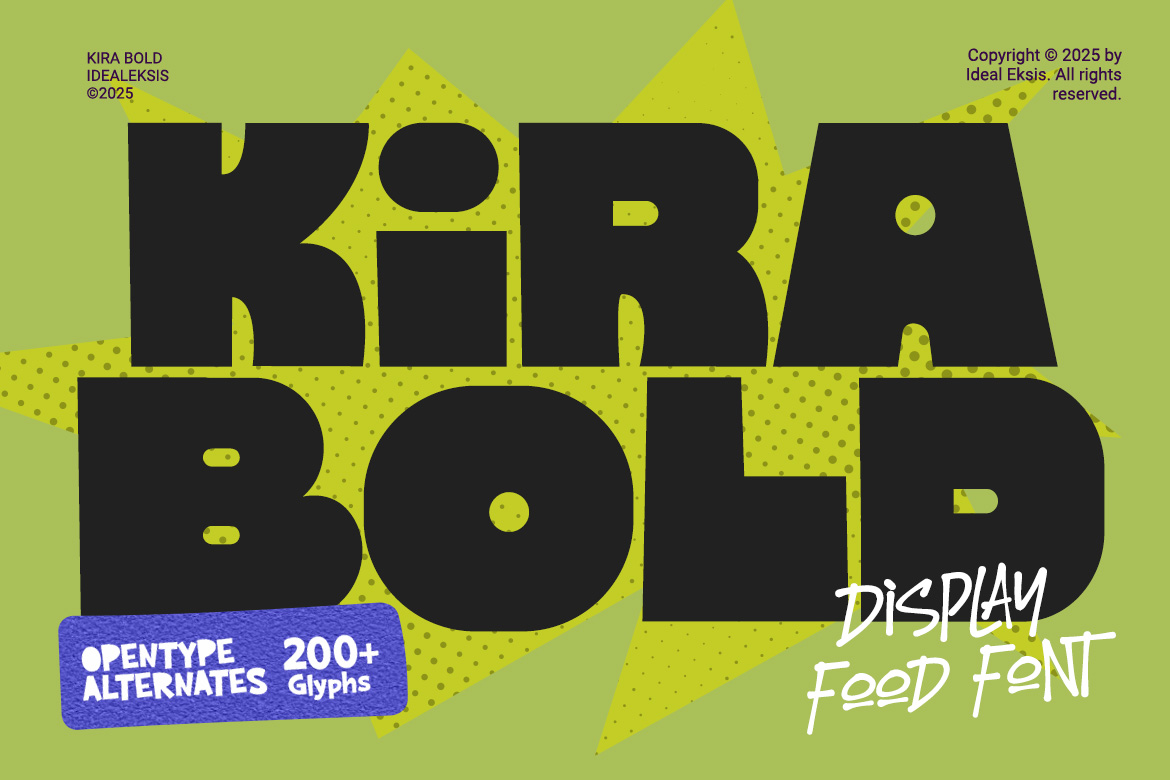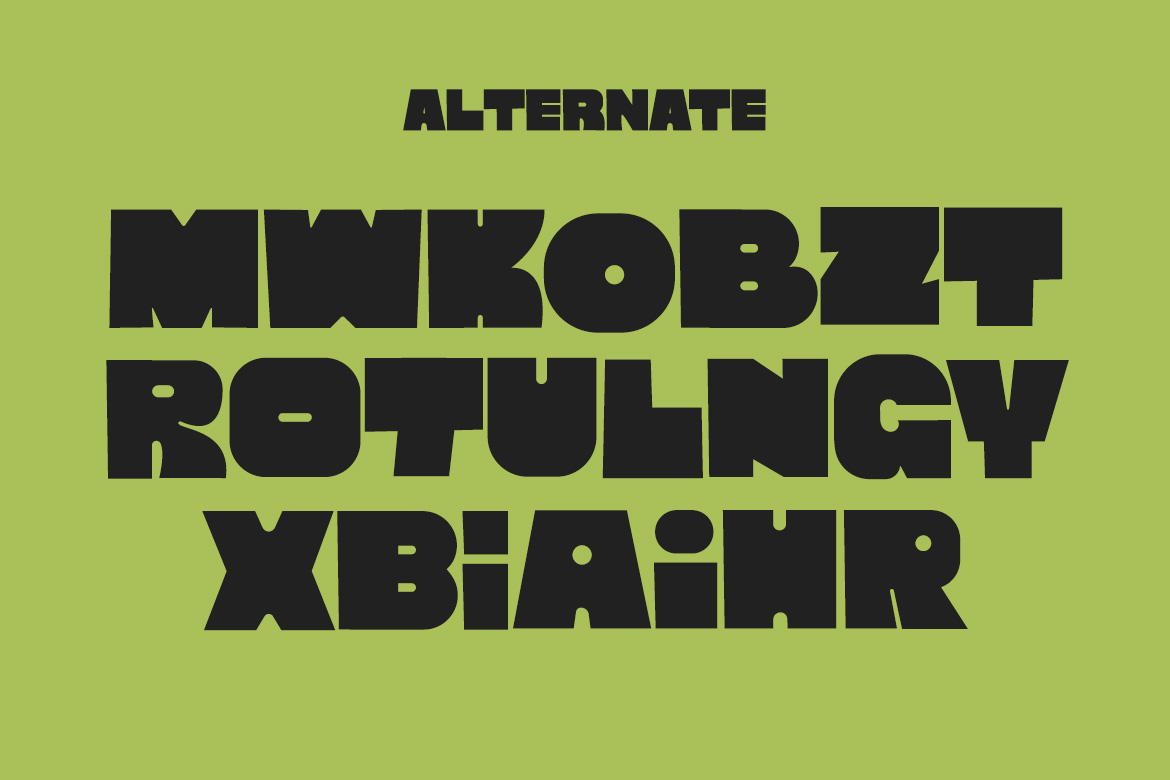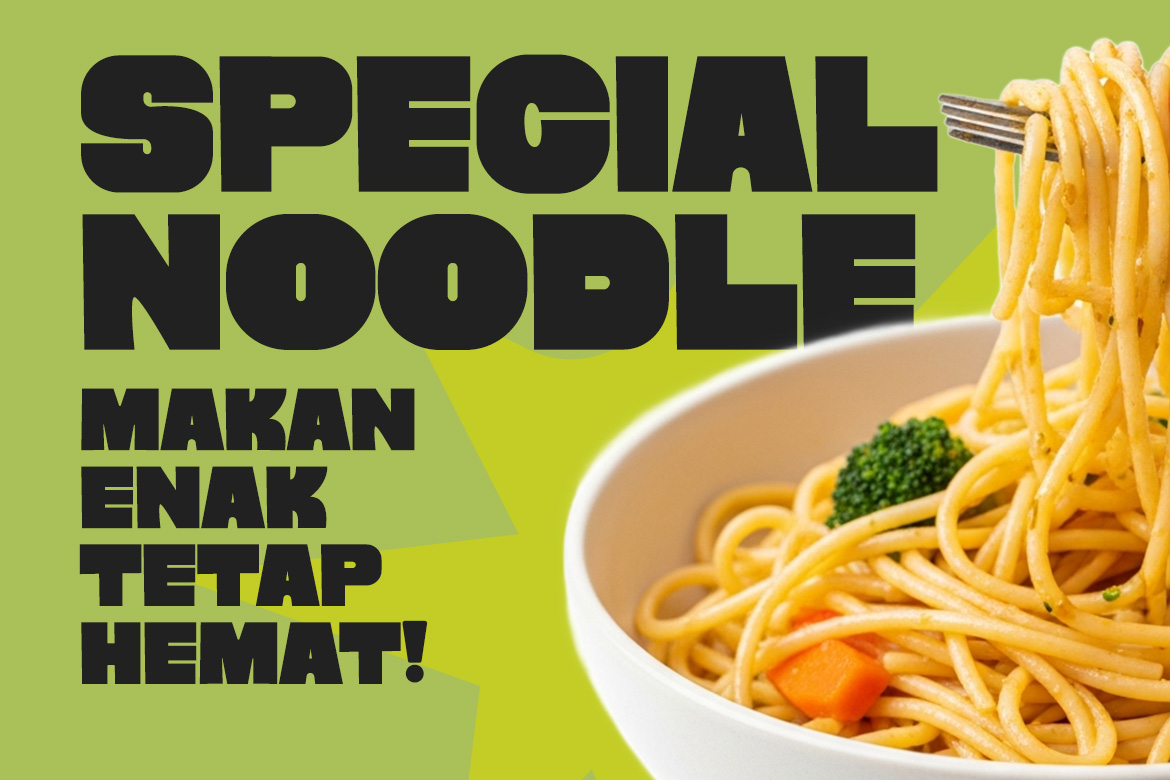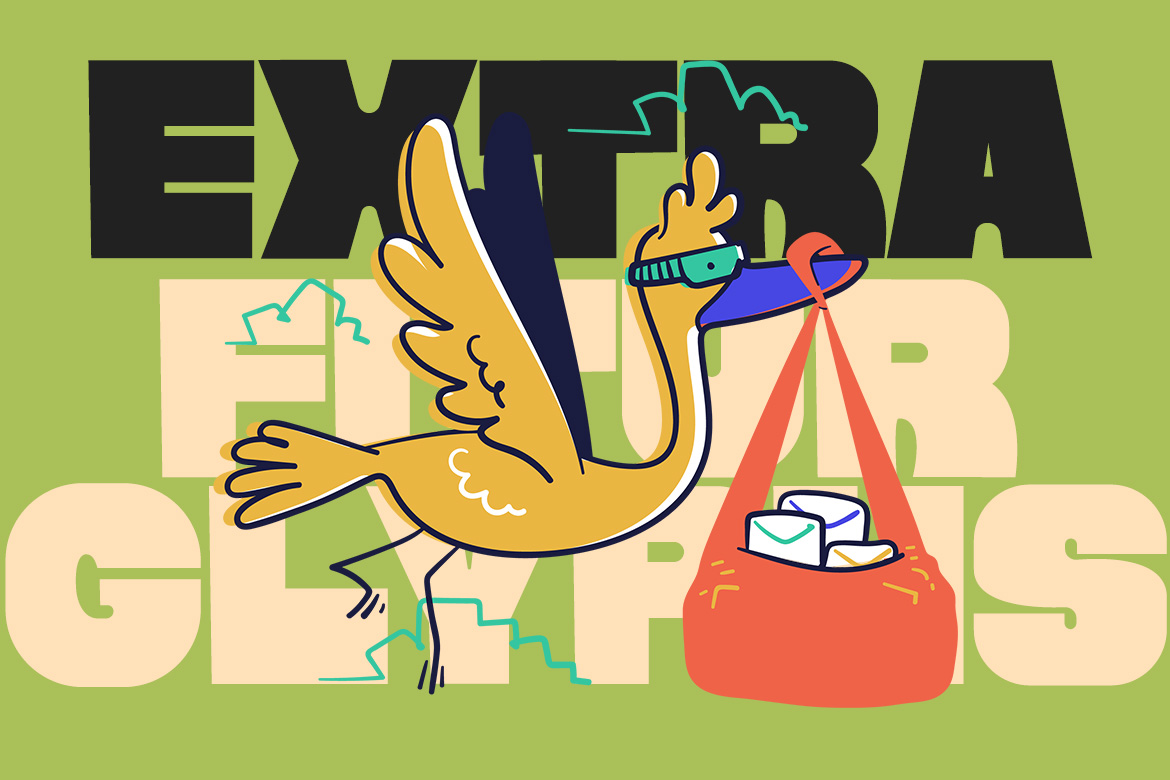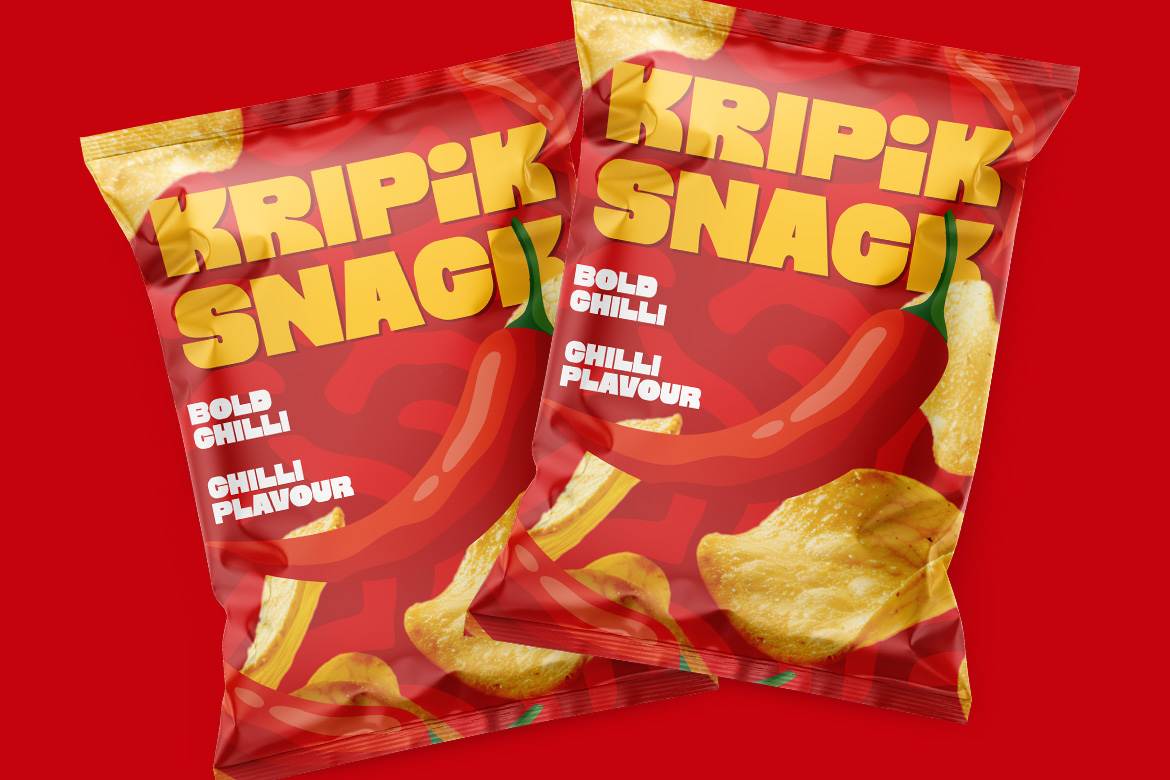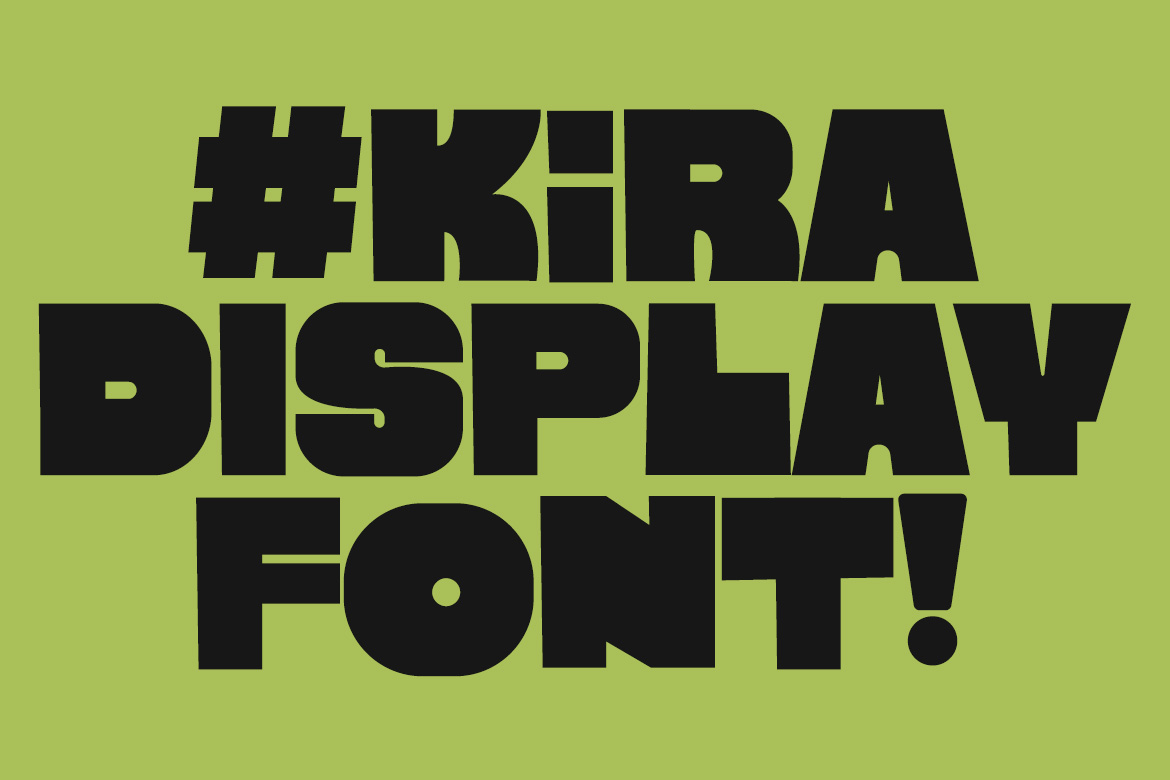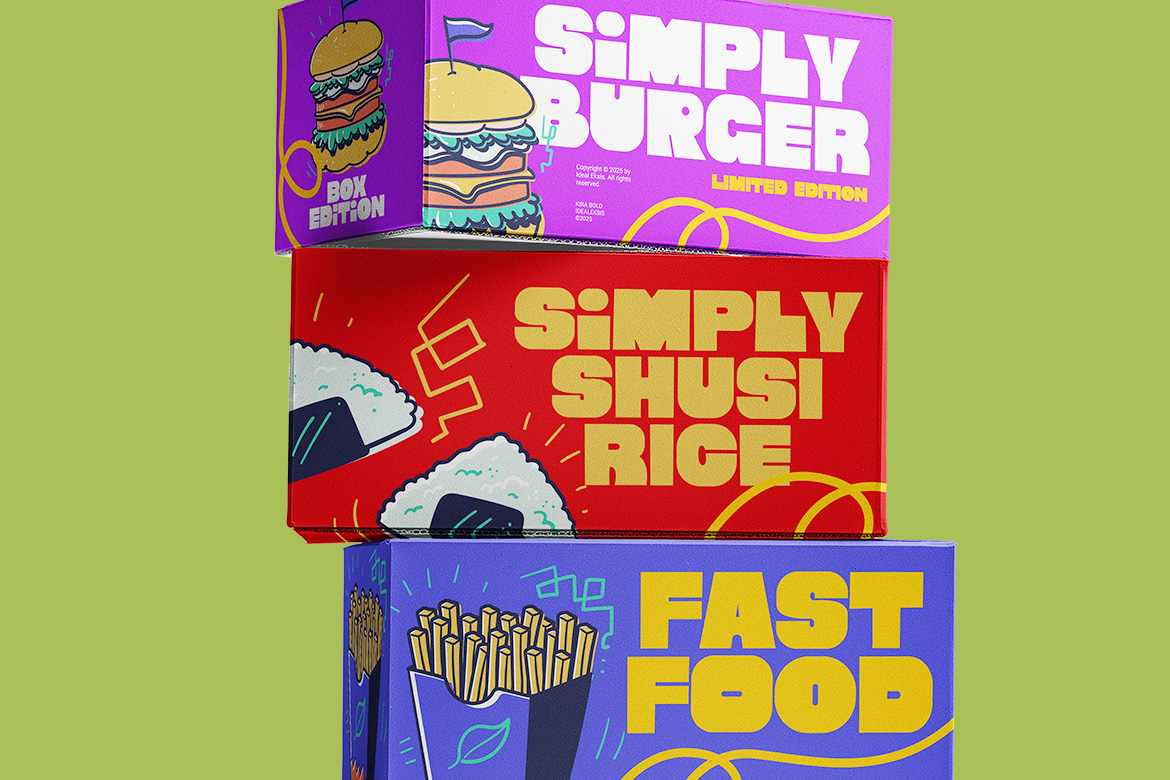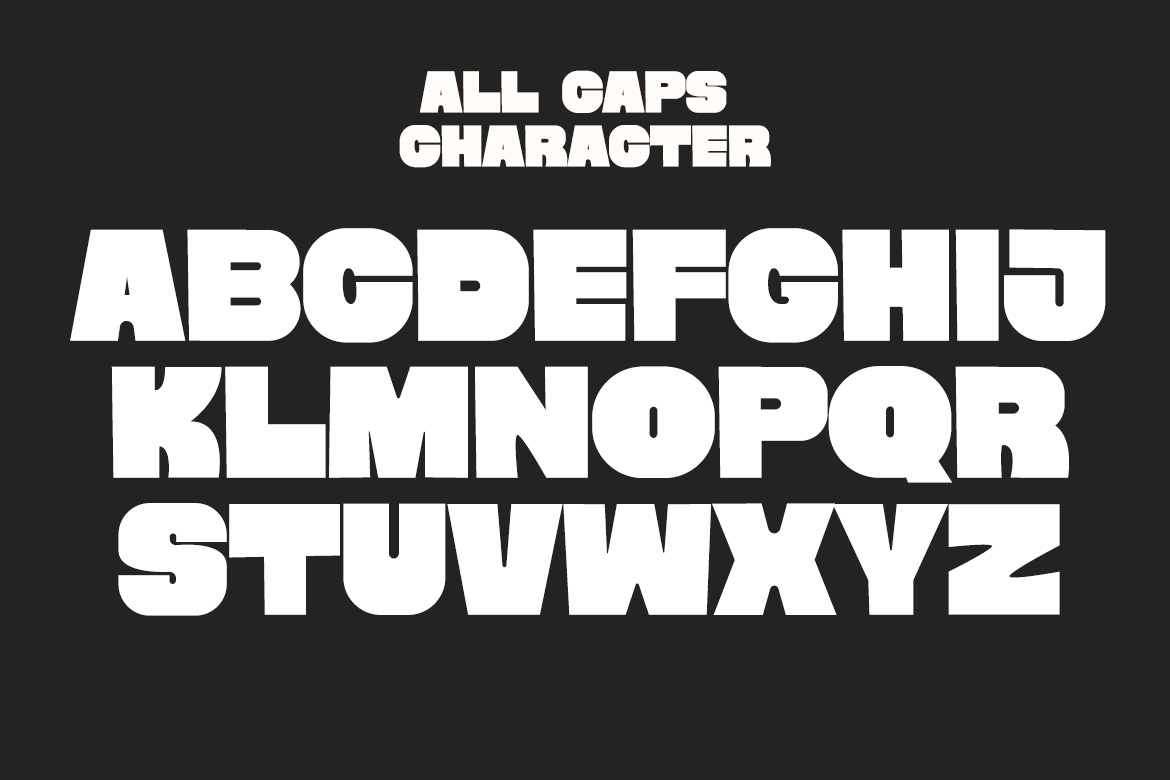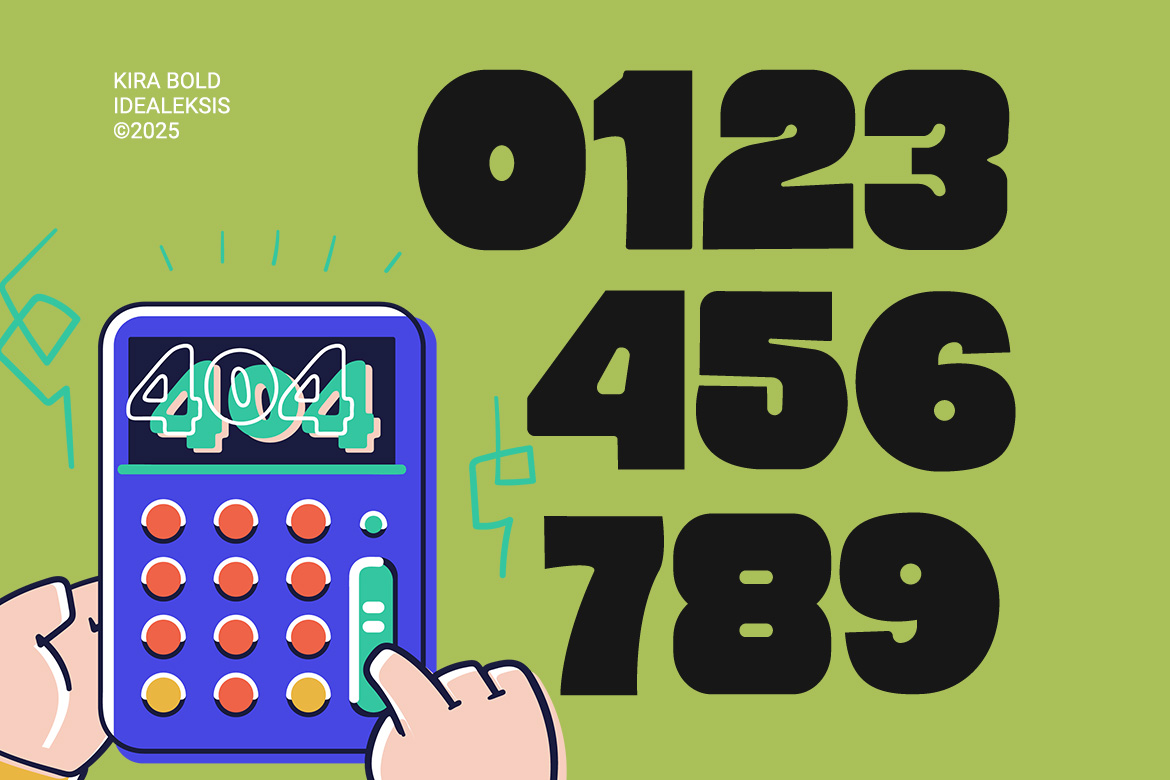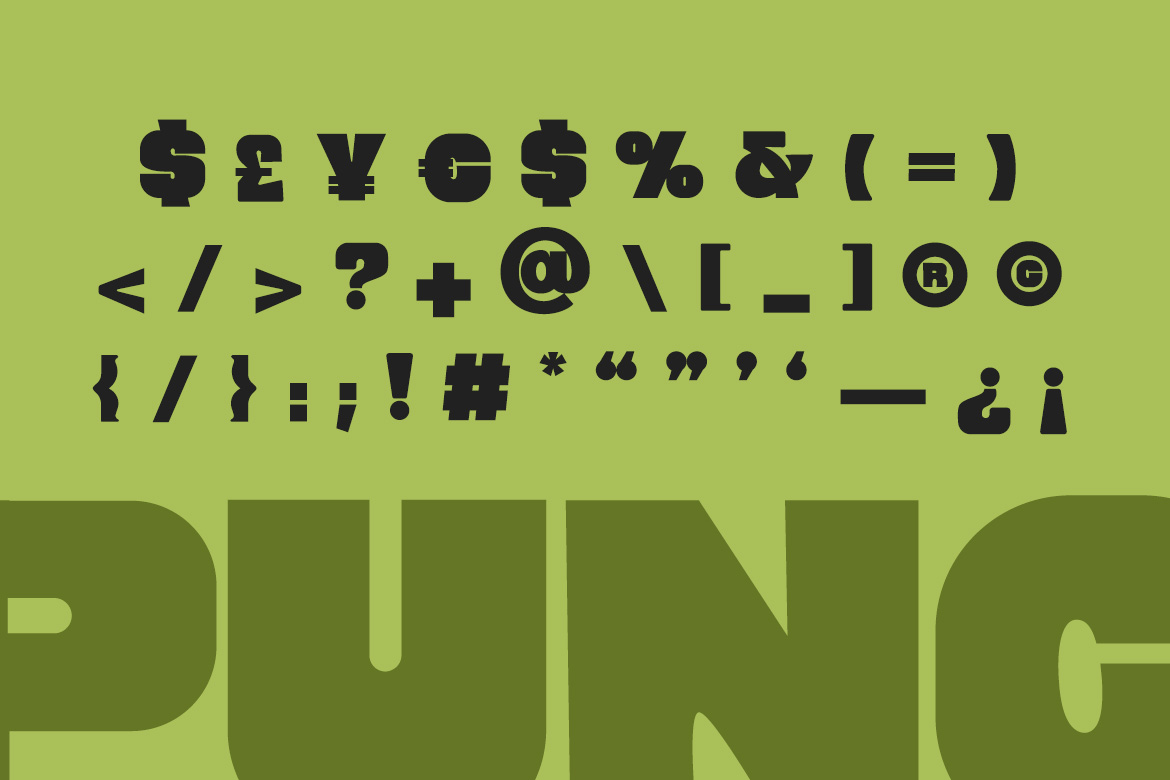
Kira
KIRA BOLD is a chunky, playful, and retro-modern type style designed with heavy shapes and soft rounded cuts that create a friendly and energetic personality. Its bold structure makes it perfect for eye-catching titles, posters, branding, packaging, children’s illustrations, merchandise, and any creative project that needs a fun and powerful visual impact. With its geometric flow and solid construction, KIRA BOLD delivers strong readability while maintaining a unique and memorable character. In Package : OTF TTF WOFF WOFF2 Feature : Uppercase(All Caps) Numerals Alternate Multilingual Support Punctuation Easy To Install Perfect for Bakery and café branding Food and beverage logos Restaurant menus and signage Coffee shop and donut shop designs Food packaging and labels Social media food promotions Kitchen-themed posters and prints Culinary blogs and recipe graphics